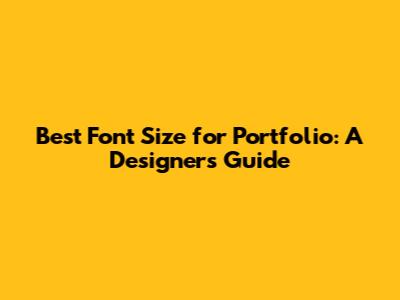
- Readability: This is the most obvious reason. If your font is too small, people will have a hard time reading it, especially on different devices. Readability ensures that your audience can easily understand your content without straining their eyes. Aim for a font size that’s comfortable to read at a glance.
- Professionalism: The font size you choose can greatly affect the perceived professionalism of your portfolio. A font that is too large or too small can make your portfolio look amateurish. Stick to standard, readable sizes to maintain a professional appearance.
- Hierarchy and Emphasis: Different font sizes help create a visual hierarchy, guiding the reader's eye to the most important information first. Use larger fonts for headings and subheadings to draw attention, and smaller fonts for body text to provide supporting details. This creates a clear structure that enhances the user experience.
- Accessibility: Consider users with visual impairments. Choosing an appropriate font size ensures that your portfolio is accessible to a wider audience. Follow accessibility guidelines to make your portfolio inclusive.
- Device Compatibility: Your portfolio will likely be viewed on various devices, from large desktop monitors to small smartphone screens. Ensure your font sizes are responsive and legible across all devices. Test your portfolio on different screens to ensure optimal viewing experience.
- H1 (Main Title): The main title of your portfolio should be the largest and most eye-catching element on the page. Aim for a font size between 32px and 48px. This will depend on the font you choose and the overall design of your site. The key is to make it bold and impactful.
- H2 (Section Titles): Section titles introduce different sections of your portfolio, such as “About Me,” “Projects,” and “Contact.” Use a font size between 24px and 32px. This should be smaller than your main title but still larger than your body text to create a clear visual hierarchy. Ensure it's distinct and readable.
- H3 (Subheadings): Subheadings break down sections into smaller, more digestible chunks. A font size between 18px and 24px works well. This helps organize your content and makes it easier for visitors to scan. Maintain consistency in your subheading styles.
- Aim for a font size between 14px and 16px. This range is generally considered comfortable to read on most devices. Choose a font that is clear and legible, and ensure the line height is appropriate for comfortable reading. Consistency is key.
- Line Height: Line height, or leading, is the vertical space between lines of text. A good line height improves readability by preventing lines of text from feeling cramped. Aim for a line height of 1.4 to 1.6 times the font size. For example, if your font size is 16px, your line height should be around 22px to 26px. Proper line height enhances readability.
- Use a font size between 12px and 14px. This size is small enough to not distract from the main content but large enough to be easily read when needed. Keep it concise and clear.
- A font size between 14px and 16px generally works well for navigation menus. The font should be clear and easy to read, and the menu items should be spaced appropriately for easy clicking or tapping. Ensure ease of navigation.
- Serif vs. Sans-Serif: Serif fonts (like Times New Roman or Georgia) have small decorative strokes at the ends of the letters, while sans-serif fonts (like Arial or Helvetica) do not. Sans-serif fonts are often considered more readable on screens, but both can work well depending on the design. Consider the context and audience.
- Readability: Choose a font that is easy to read at the sizes you plan to use. Test different fonts to see how they look on different devices and screen sizes. Prioritize readability above all else.
- Personality: Your font choice can also reflect your personal style or brand. Choose a font that aligns with the overall tone and aesthetic of your portfolio. Maintain consistency in branding.
- Font Pairing: If you're using multiple fonts, make sure they complement each other. A good rule of thumb is to pair a serif font with a sans-serif font. Ensure visual harmony.
- Browser Developer Tools: Most browsers have built-in developer tools that allow you to inspect the font sizes and styles of elements on your page. Use these tools to experiment with different font sizes and see how they look. Leverage built-in tools.
- Online Font Size Testers: There are many online tools that allow you to test different font sizes and see how they look on different devices. These tools can be helpful for getting a quick sense of whether your font sizes are appropriate. Utilize online resources.
- User Testing: The best way to know if your font sizes are working is to get feedback from real users. Ask friends, colleagues, or potential clients to review your portfolio and provide feedback on readability. Gather user feedback.